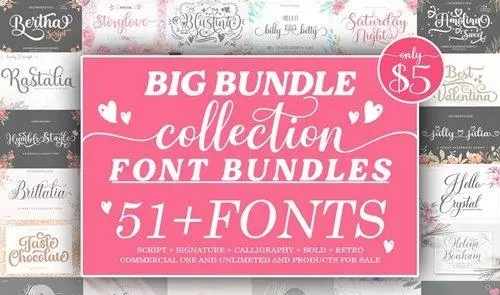
Big Collection Font Bundle
The Big Collection Font Bundle features a diverse selection of high-quality fonts suitable for various design projects. This bundle includes a range of styles, from elegant serifs to modern sans-serifs, ensuring you have the perfect typeface for any occasion.
• Multiple font styles: serif, sans-serif, script, and display
• Various weights and styles for versatility
Each font in this collection is crafted with attention to detail, providing excellent legibility and aesthetic appeal. Perfect for branding, logos, web design, print materials, and user interfaces.
• Combine different styles for a unique look in your projects